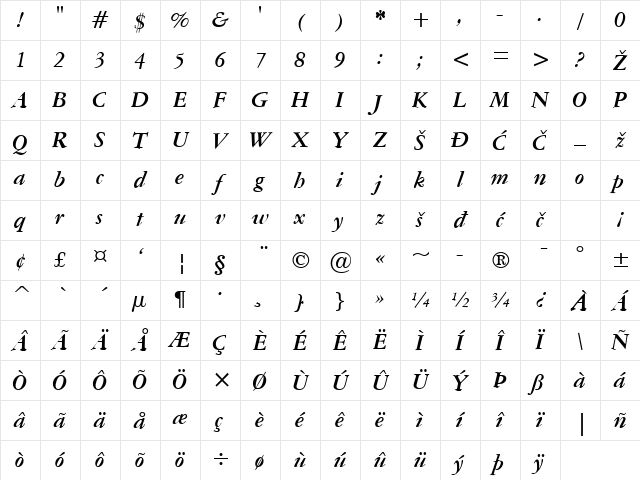
American Bold Italic
American Family
Design Context for American
American is a composed and adaptable typeface that performs quietly and consistently across a wide range of design contexts. The slanted form adds forward momentum and visual energy. Its bold stroke weight gives it real presence on the page.
Pro Tip: Use American for emphasis, pull quotes, and subheadings where its slanted energy can add rhythm to the layout.